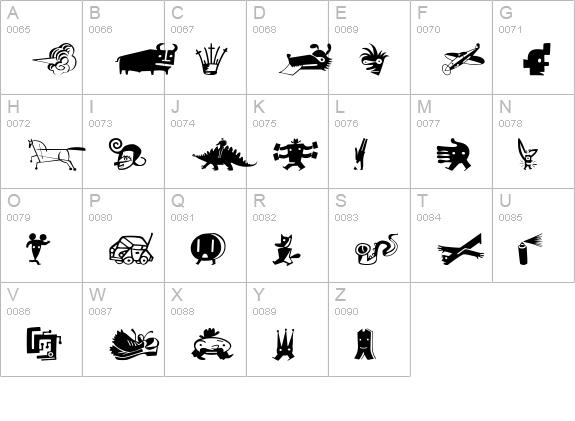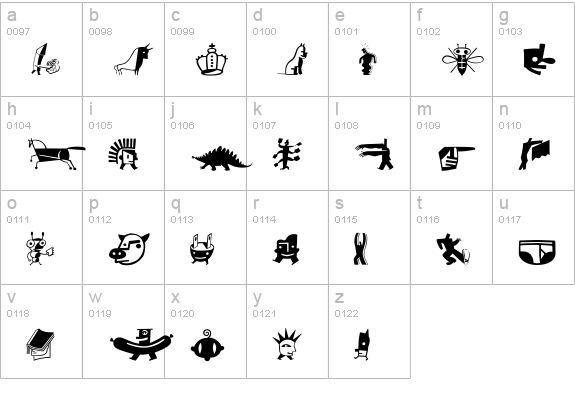
BigCheeseLight Font Details
Introducing BigCheeseLight font, a delightful and whimsical typeface perfect for adding a touch of playfulness to your designs. This font features a unique blend of boldness and elegance, making it suitable for a wide range of projects, from branding to invitations to social media graphics. The BigCheeseLight font is not only visually appealing but also highly versatile, allowing you to create eye-catching designs with ease. Its clean lines and modern aesthetic make it a great choice for both digital and print applications. And the best part? BigCheeseLight font is available for free download at FontsMarket.com, so you can start using it in your projects right away. Don't miss out on this stylish and charming font that will surely make a statement in your designs.